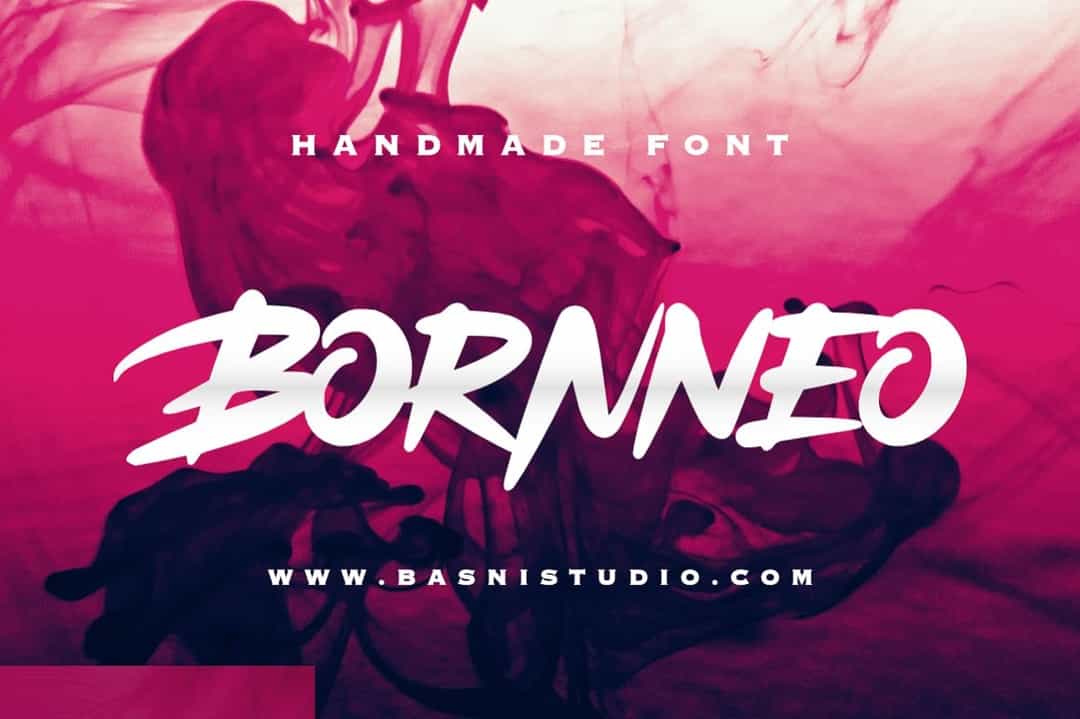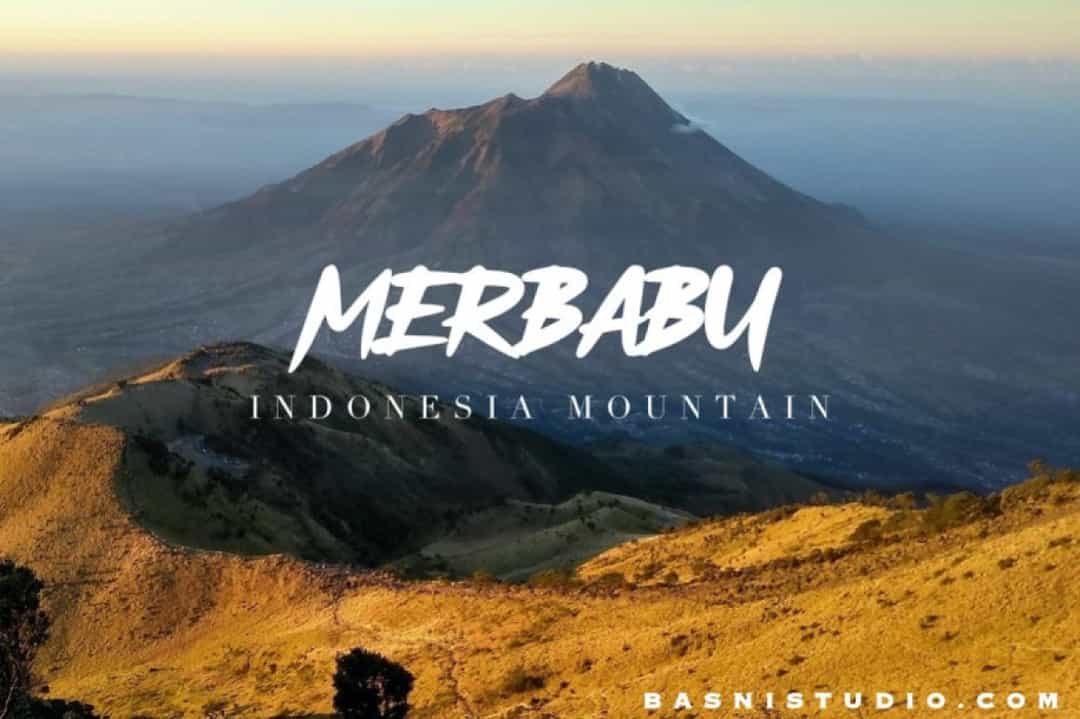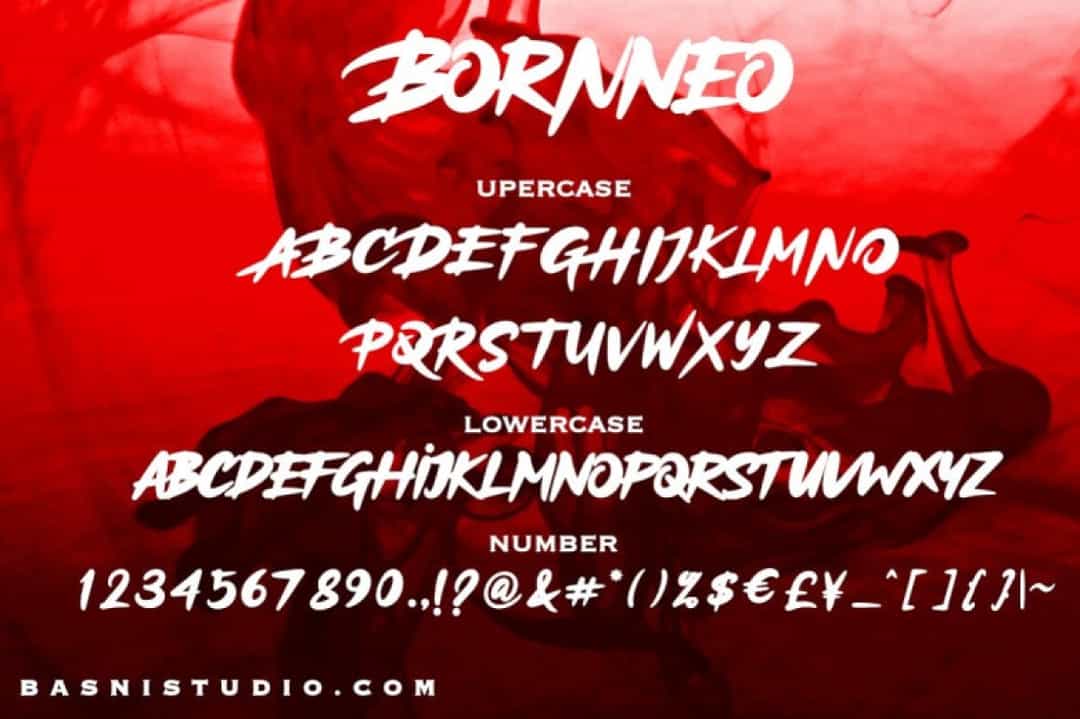
Bornneo is the first handmade display font. Perfect for branding websites and editorial designs alike, Bornneo features all upper-case punctuation, letters and more in an easily customizable font file containing upper/lower case punctuation/letters/punctuation; includes TTF version as well.